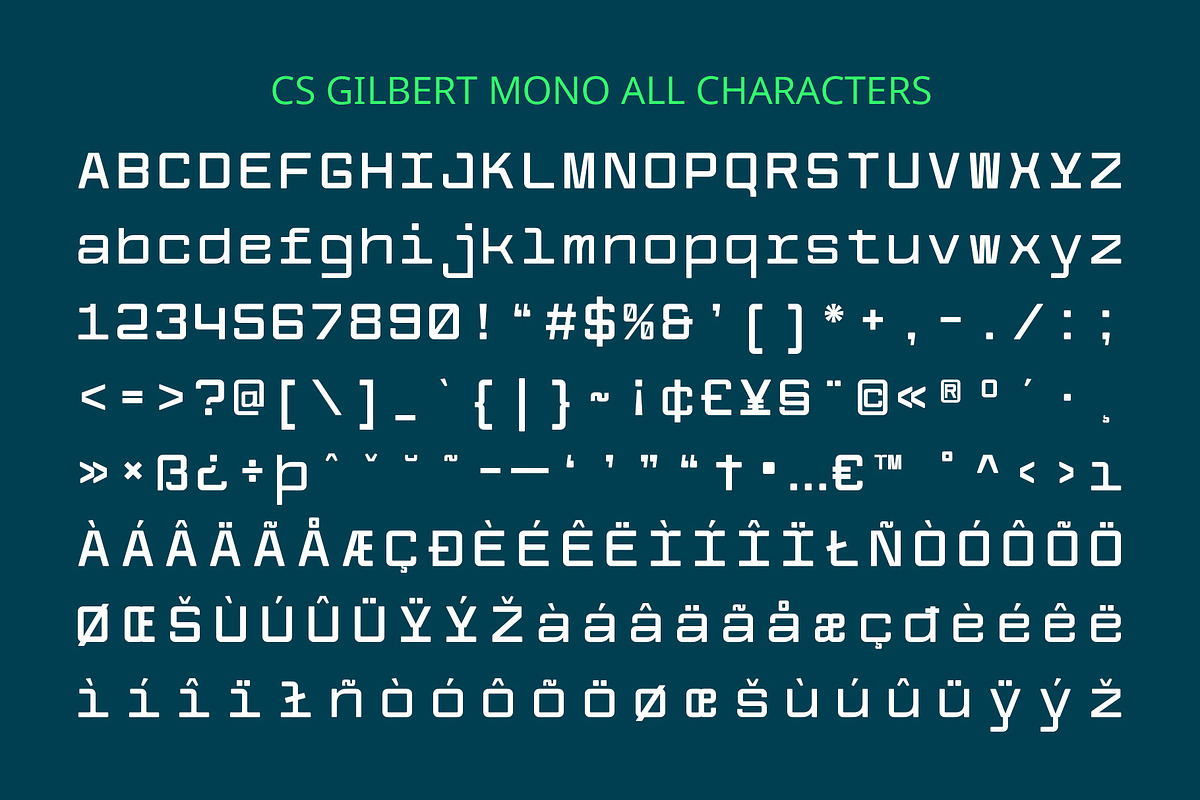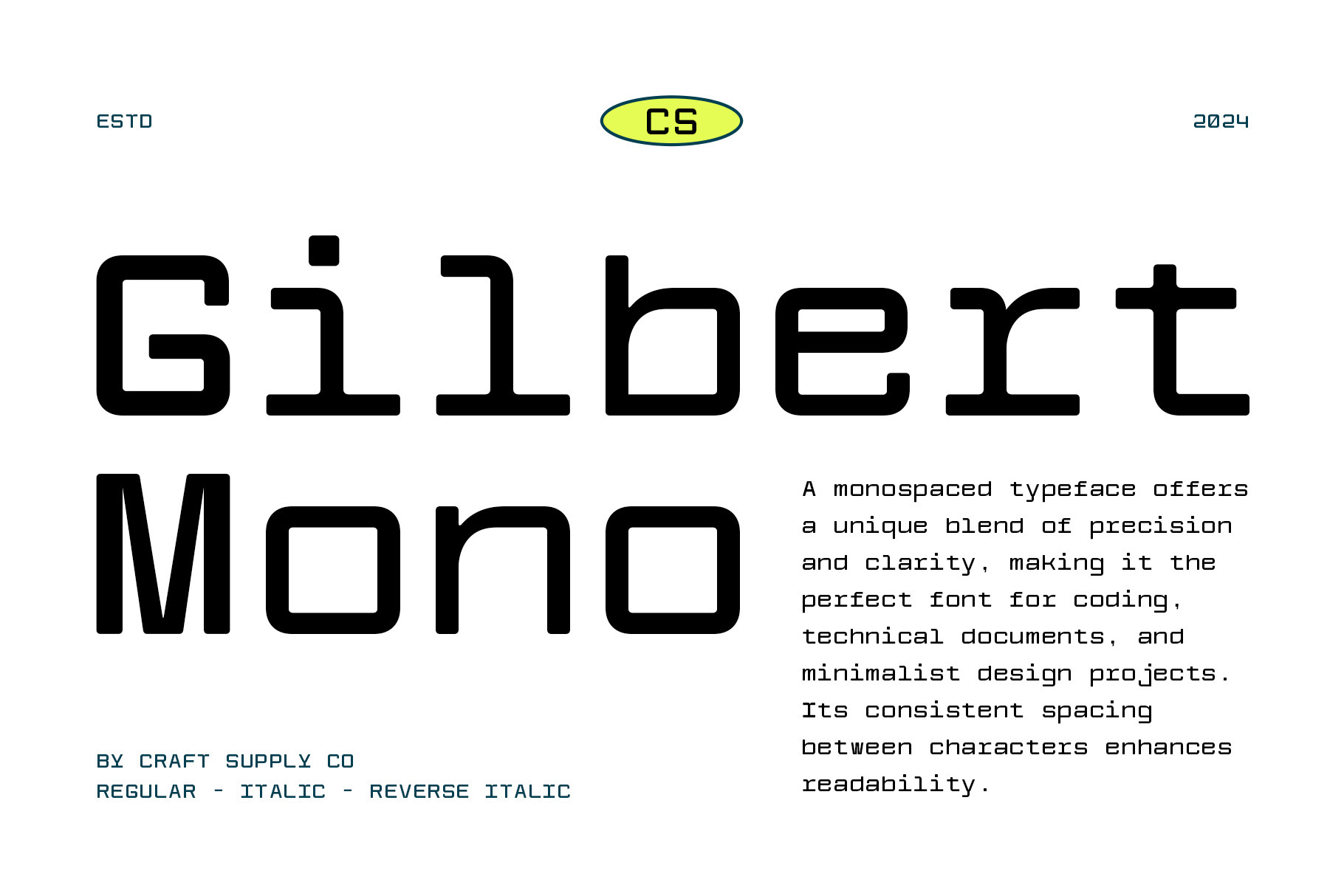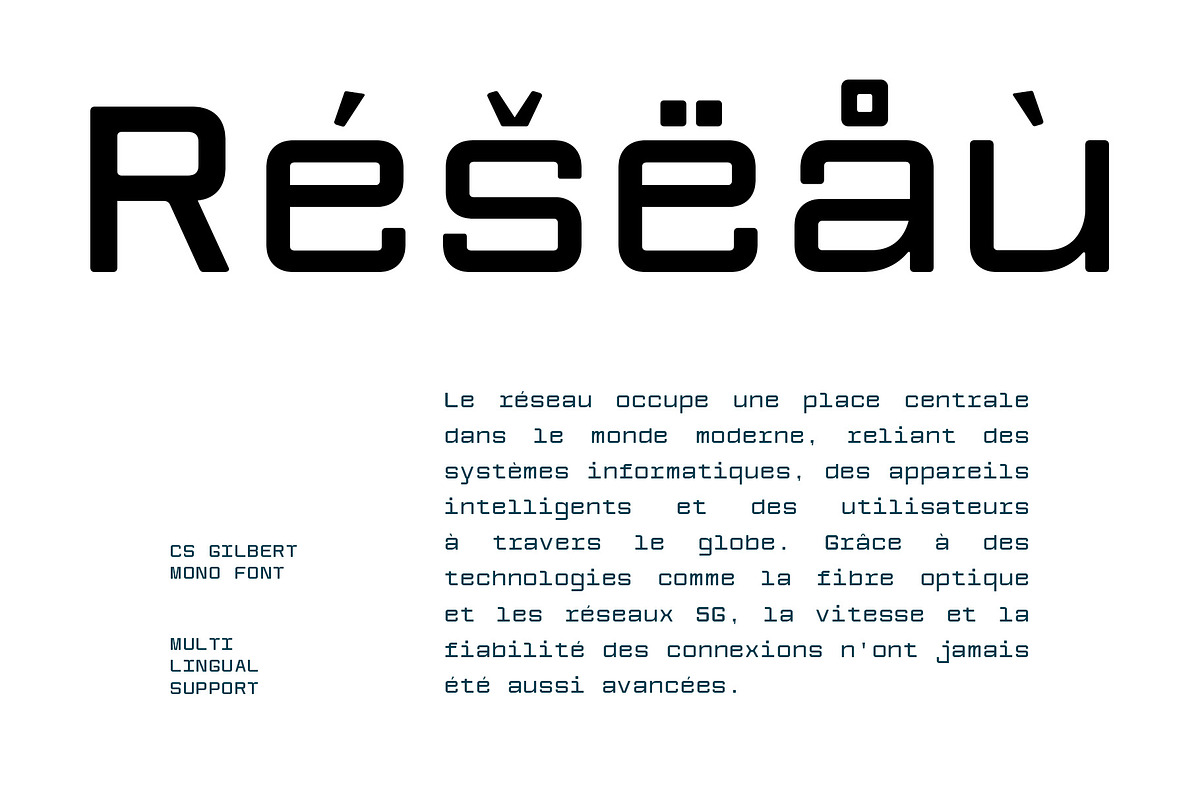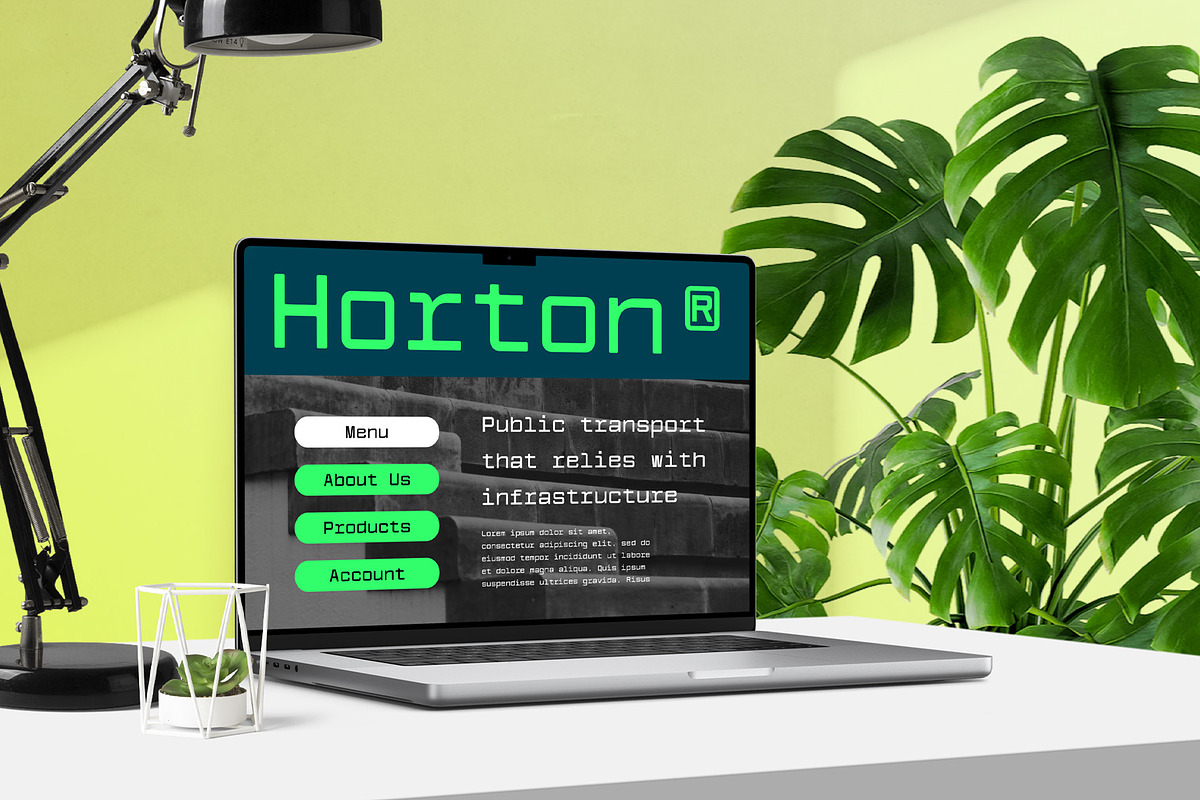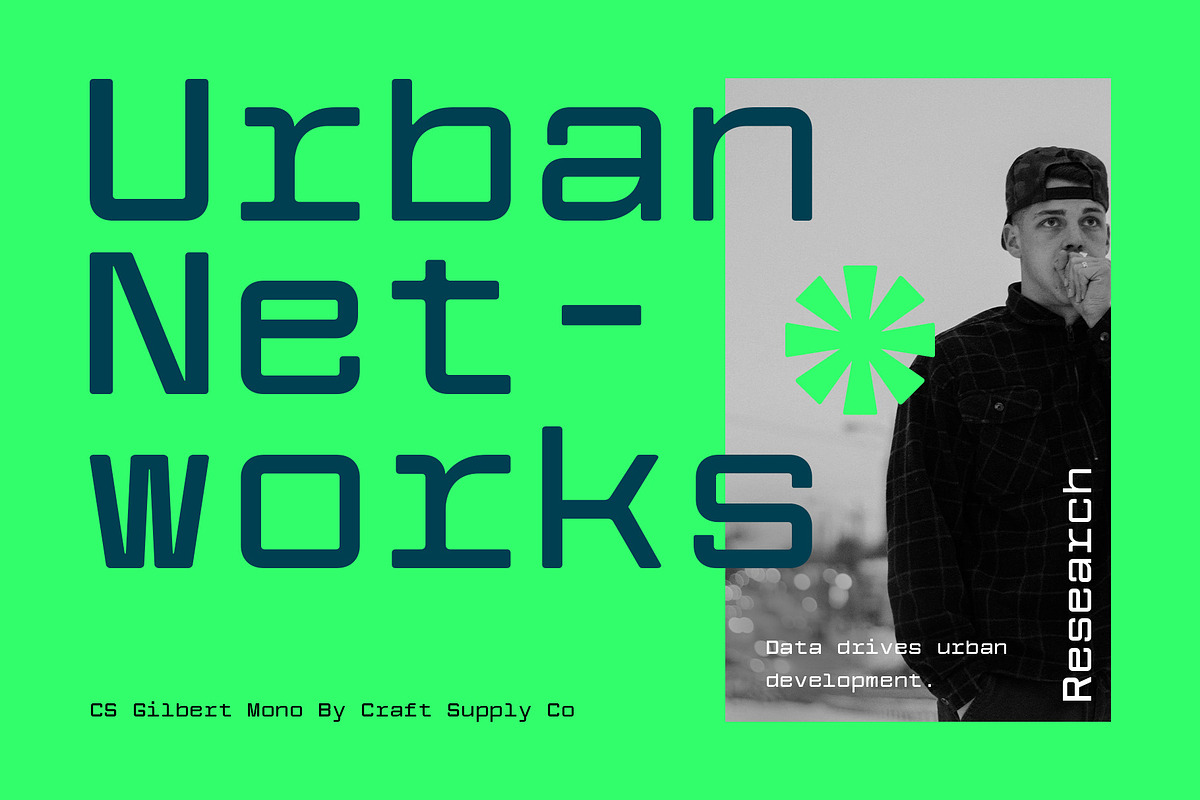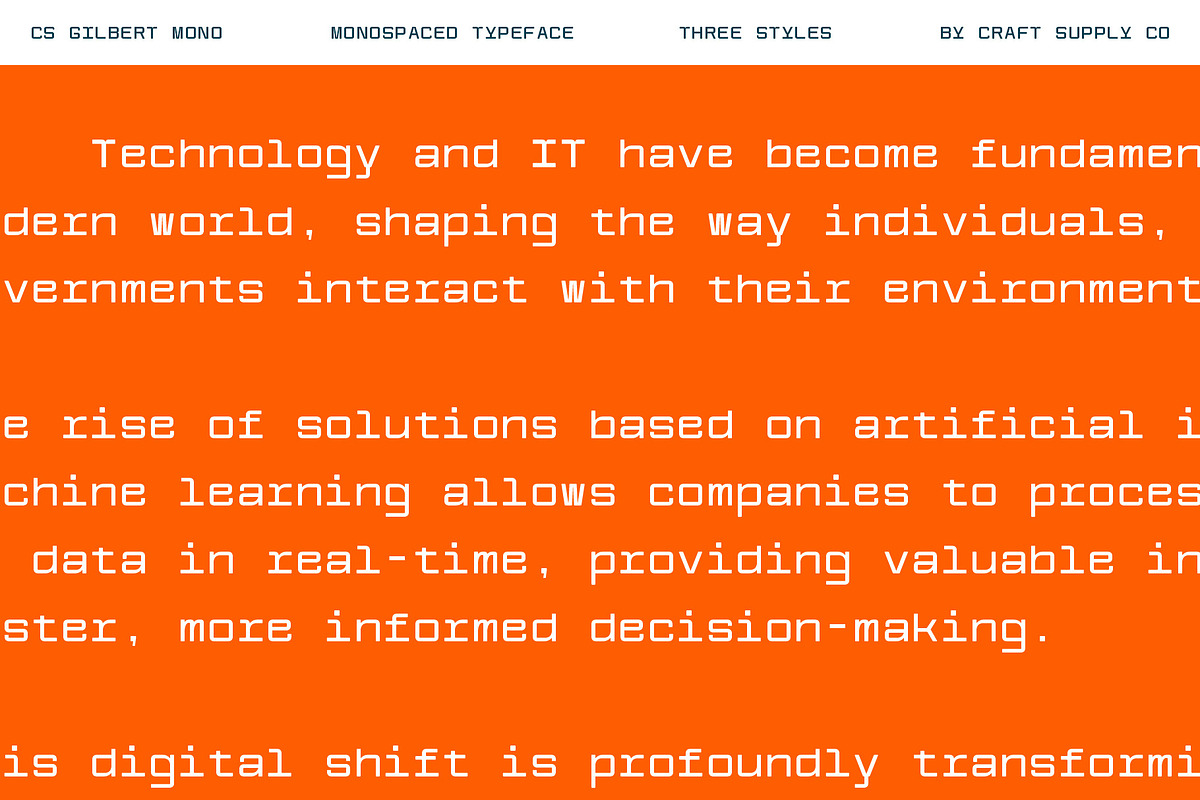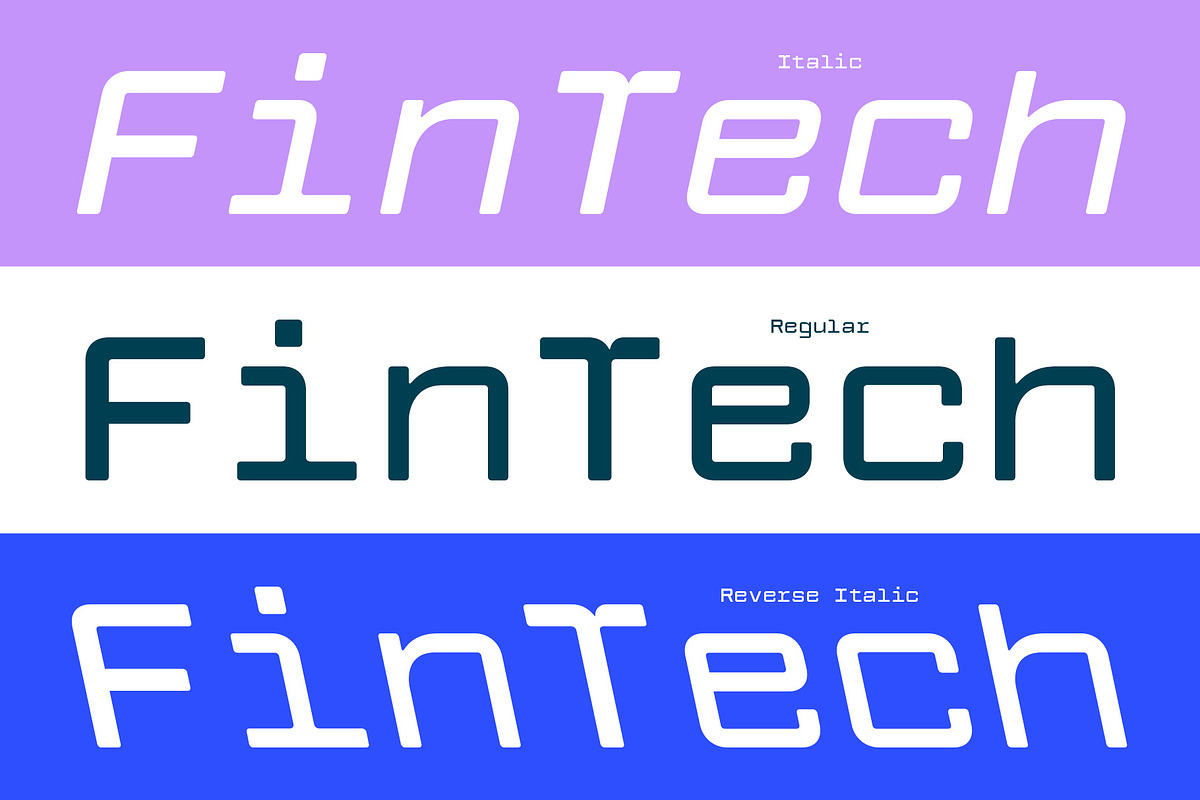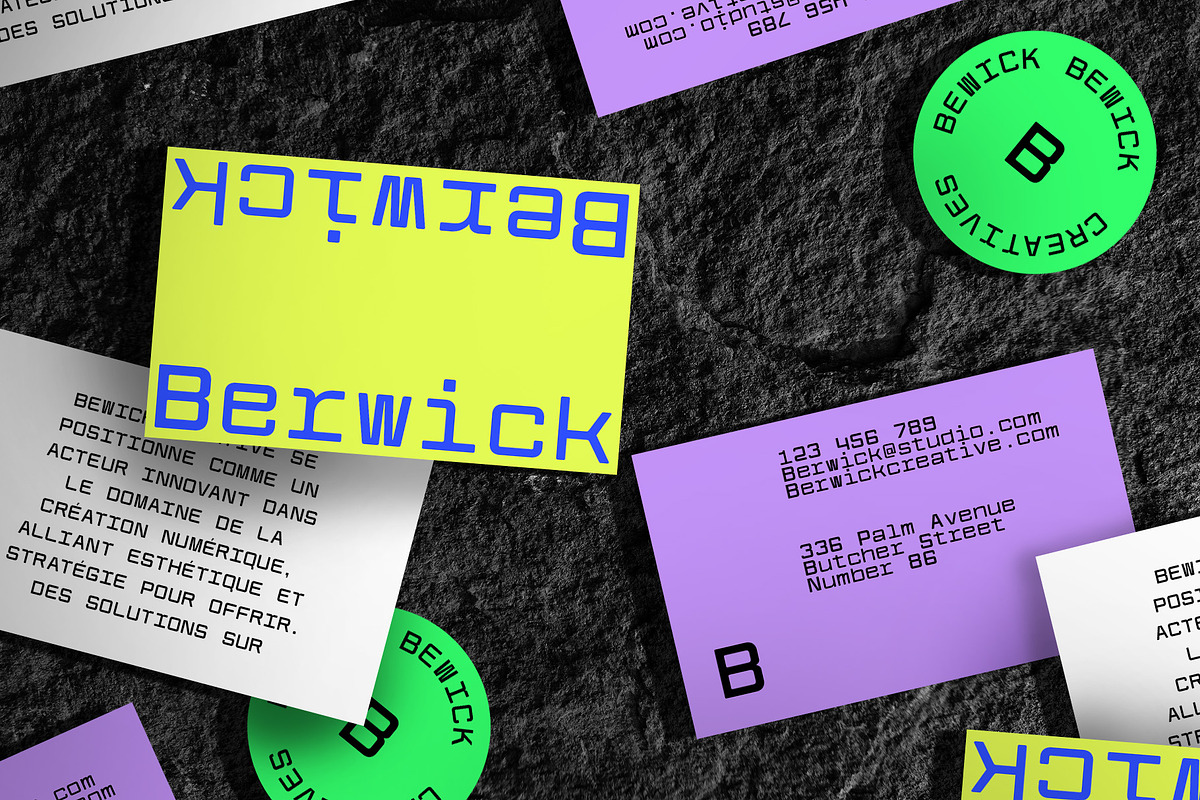
CS Gilbert Mono – Monospaced Font
CS Gilbert Monospaced Font: The Perfect Blend of Modernity and Functionality
Geometric and Minimalist Design This is a modern monospaced sans serif font that embodies simplicity and precision through its geometric design. Each character is meticulously crafted with uniform width, ensuring consistent spacing and alignment across all applications. This characteristic not only enhances the visual appeal but also allows for a clear and organized presentation of text, making it particularly suitable for programming and software development.
Optimal Readability for Code Structuring Engineered with readability in mind, this font facilitates easy comprehension of code, making it an essential tool for developers and programmers. The equal width of each character helps users effortlessly follow indentation and structural patterns in their code, minimizing errors and enhancing productivity. This readability extends to technical documentation, where clarity is paramount, ensuring that complex information is conveyed with precision.
Professional Appearance for Diverse Applications Beyond its technical advantages, this font features a clean and minimalist aesthetic that lends a professional touch to any project. Whether used in integrated development environments (IDEs), text editors, or documentation, this font’s geometric style conveys a sense of modernity and sophistication. It seamlessly fits into a variety of contexts, from corporate technical manuals to personal coding projects.